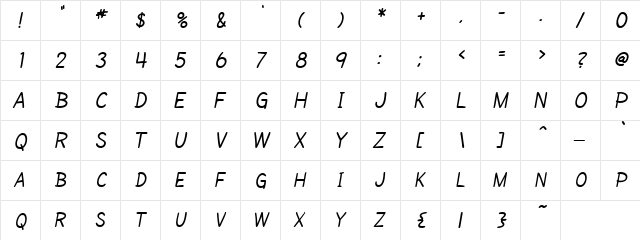
Gadila Rin Regular
Design Context for Gadila Rin Typeface
Gadila Rin is a composed and adaptable typeface that performs quietly and consistently across a wide range of design contexts.
Pro Tip: Use Gadila Rin in both headline and body roles to test its range before committing to a single application.